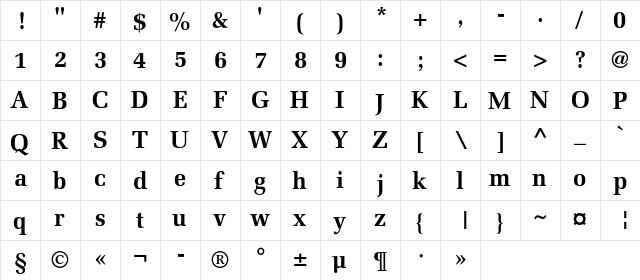
AGMelanieC Bold
Design Context for AGMelanieC Typeface
AGMelanieC is a composed and adaptable typeface that performs quietly and consistently across a wide range of design contexts. Its bold stroke weight gives it real presence on the page.
Pro Tip: Use AGMelanieC in both headline and body roles to test its range before committing to a single application.